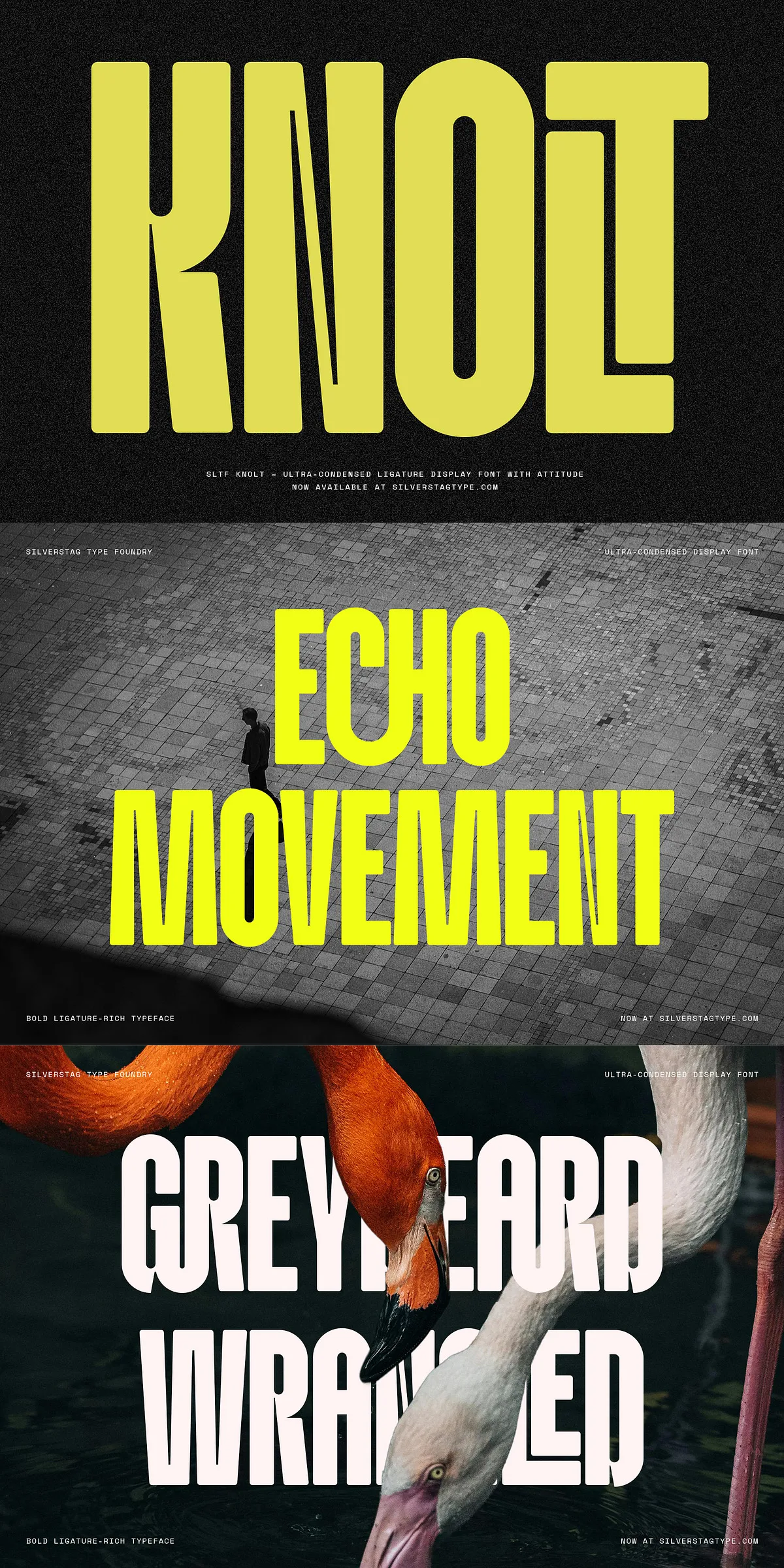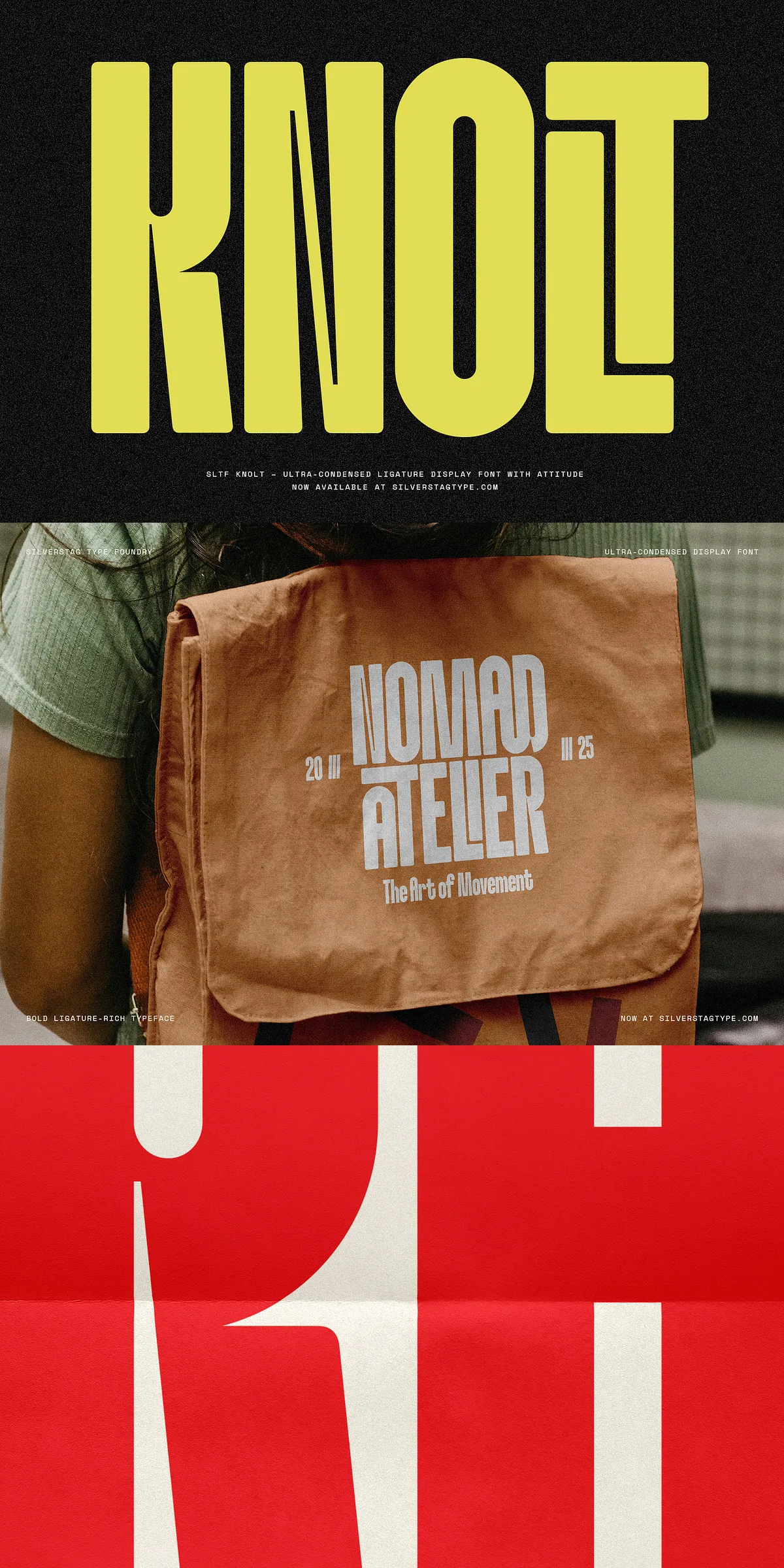
Stand out in a crowded visual landscape with SLTF Knolt, a razor-sharp, ultra-condensed display font engineered for maximum impact. This isn’t just typography—it’s a statement. With its dramatic verticality, high-contrast strokes, and meticulously crafted ink traps, Knolt was built to cut through noise, command attention, and leave a lasting impression on every viewer.
Design That Demands Attention: The Anatomy of a Bold Statement
Knolt is precision-crafted for high-impact applications where space is limited and presence is everything. Its ultra-tight letterforms are not just thin—they’re intentional. Every curve, corner, and stroke has been optimized for rhythm, balance, and visual energy, ensuring clarity and boldness even at the smallest visible sizes.
- Dramatic Verticality: The elongated proportions create a dynamic, upward momentum—perfect for vertical layouts, tall headlines, or any design where height equals power.
- High-Contrast Strokes: Sharp transitions between thick and thin components deliver an electrifying visual tension, elevating the font from utilitarian to artistic.
- Edgy Ink Traps: Custom-designed to eliminate ghosting and maintain clean form during printing and on screens, ensuring crisp, professional results in all media.
- Space-Saving Mastery: Ideal for tight layouts, minimalist packaging, or editorial text that needs to scream without shouting—Knolt makes the most of every pixel.
Artistry in Every Ligature: Expand Your Creative Vocabulary
Beyond its striking form, Knolt is a design tool built for experimentation. With over 100 handcrafted ligatures, this typeface gives designers the freedom to push boundaries and create unique typographic signatures.
From stylish character pairings to custom flourishes, ligatures allow you to break the rules—and win. Use them to craft stylized brand names, dynamic headlines, or surreal typographic art. The possibilities aren’t just infinite—they’re exhilarating.
- Curated Ligature Library: Each ligature was developed with function and aesthetics in mind, ensuring visual coherence across diverse applications.
- Consistent Rhythm: Even when combined, ligatures maintain the tight, uniform spacing that defines Knolt’s bold character.
- Ready for Design Challenges: Whether pairing in a fashion editorial, branding a lifestyle product, or designing for concert posters—Knolt adapts.
Where Knolt Reigns Supreme: High-Impact Applications
Knolt isn’t for every project—but when the moment calls for dominance, it’s the only choice.
- Fashion & Luxury Branding: Elevate runway looks, designer labels, and high-end packaging with a font that exudes confidence and edge.
- Editorial & Magazine Design: Make headlines leap from the page. Knolt’s sharpness and rhythm add sophistication to fashion spreads, music reviews, and lifestyle features.
- Album Art & Music Campaigns: Perfect for genre-defying artists and experimental sounds—this font embodies modern underground energy.
- Logo & Identity Systems: Generate compact, striking logos that are memorable, scalable, and instantly recognizable.
- Advertising & Digital Campaigns: Use Knolt in banners, social media posts, and video thumbnails to grab attention in milliseconds.
Unmatched Technical Foundation for Real-World Workflows
Design excellence isn’t just about looks—it’s about performance. Knolt delivers on both fronts with a robust technical structure tailored for professionals.
- Full Uppercase & Lowercase Support: Every letterform is optimized for both cases—no compromises in style or legibility.
- Comprehensive Punctuation & Symbols: Includes full support for fractions, ornaments, currency, and special characters.
- 90+ Languages Support: Multilingual compatibility includes Latin, Cyrillic, Greek, and extended scripts—ideal for global campaigns and international clients.
- Variable Font Support (Pro Version): The Pro edition offers dynamic weight, width, and slant control—perfect for responsive design and interactive experiences.
Claim Your Signature Style — Let Knolt Speak for You
When your message needs more than visibility—it demands authority, style, and presence—SLTF Knolt is your instrument of influence. It’s the font for those who don’t follow trends—they set them.
Design with boldness. Display with edge. Make every letter matter with SLTF Knolt—where tight meets powerful.